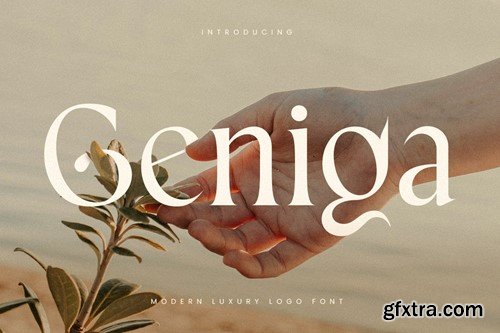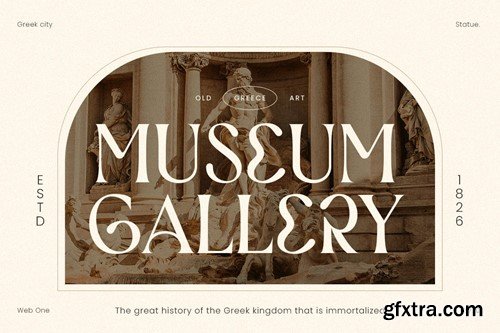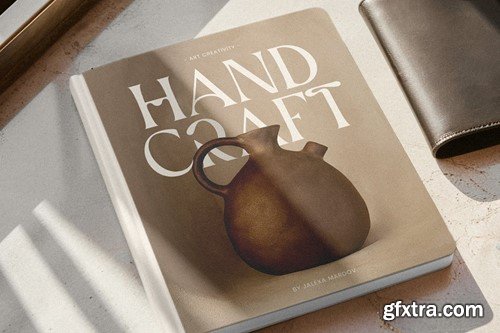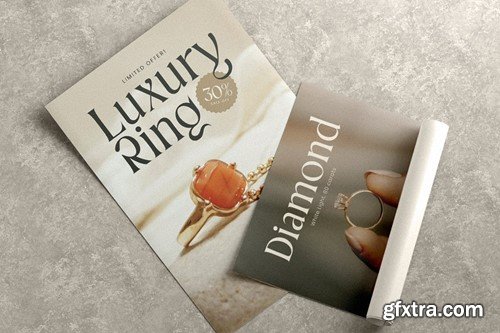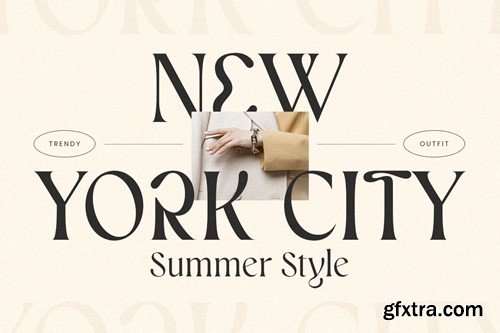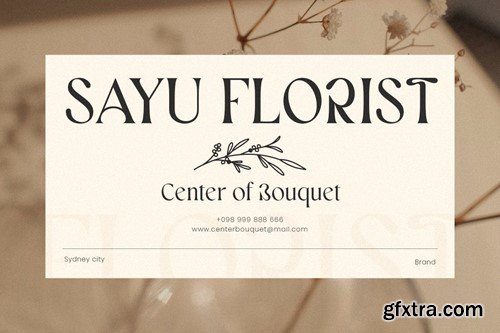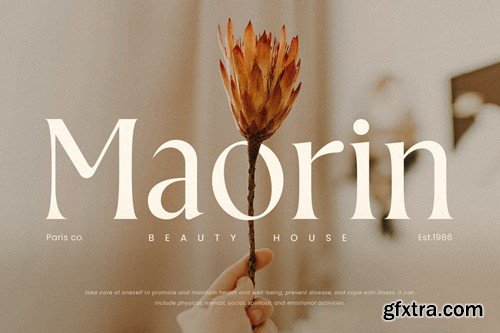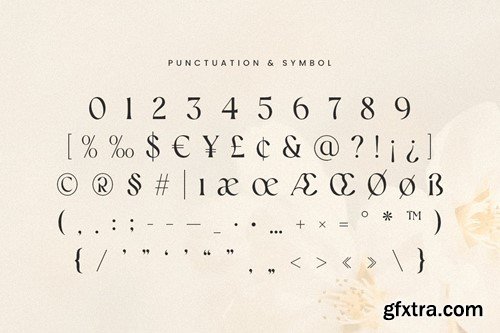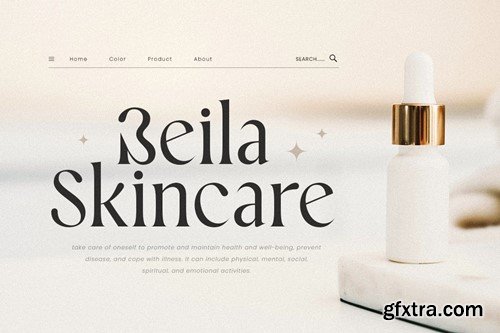
An exclusive luxury font tailored for sophisticated and modern branding, offering an elegant aesthetic to enhance your brand's allure. Crafted with unique alternates, this font is designed to elevate the value of your brand. Whether you're a designer or a product owner seeking stylish and modern solutions, this font provides the perfect answer. Boasting an array of bohemian characters, it opens the door to endless creative possibilities, allowing you to create a myriad of variations for your unique and stylish designs. What's Included: Recommended using Adobe Illustrator or Adobe Photoshop. Wish you enjoy our font. :)